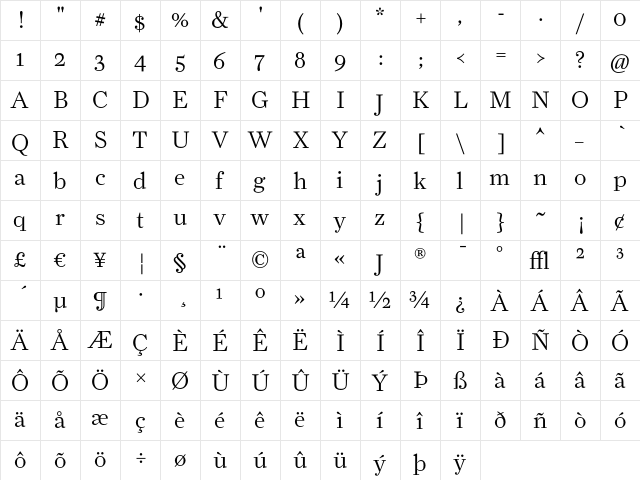
FarnhamDisplay-LightOSF Regular
Design Context for FarnhamDisplay-LightOSF Typeface
FarnhamDisplay-LightOSF brings ornamental detail and strong personality to headlines and identities, where visual impact matters more than quiet functionality. Its slender proportions lend an understated elegance to any composition.
Font Pairing: Pair with a clean neutral sans-serif for body copy to let FarnhamDisplay-LightOSF's character lead without overwhelming the composition.
Pro Tip: Treat FarnhamDisplay-LightOSF as the centrepiece of your typographic hierarchy. One strong heading set in a decorative face can carry an entire layout.